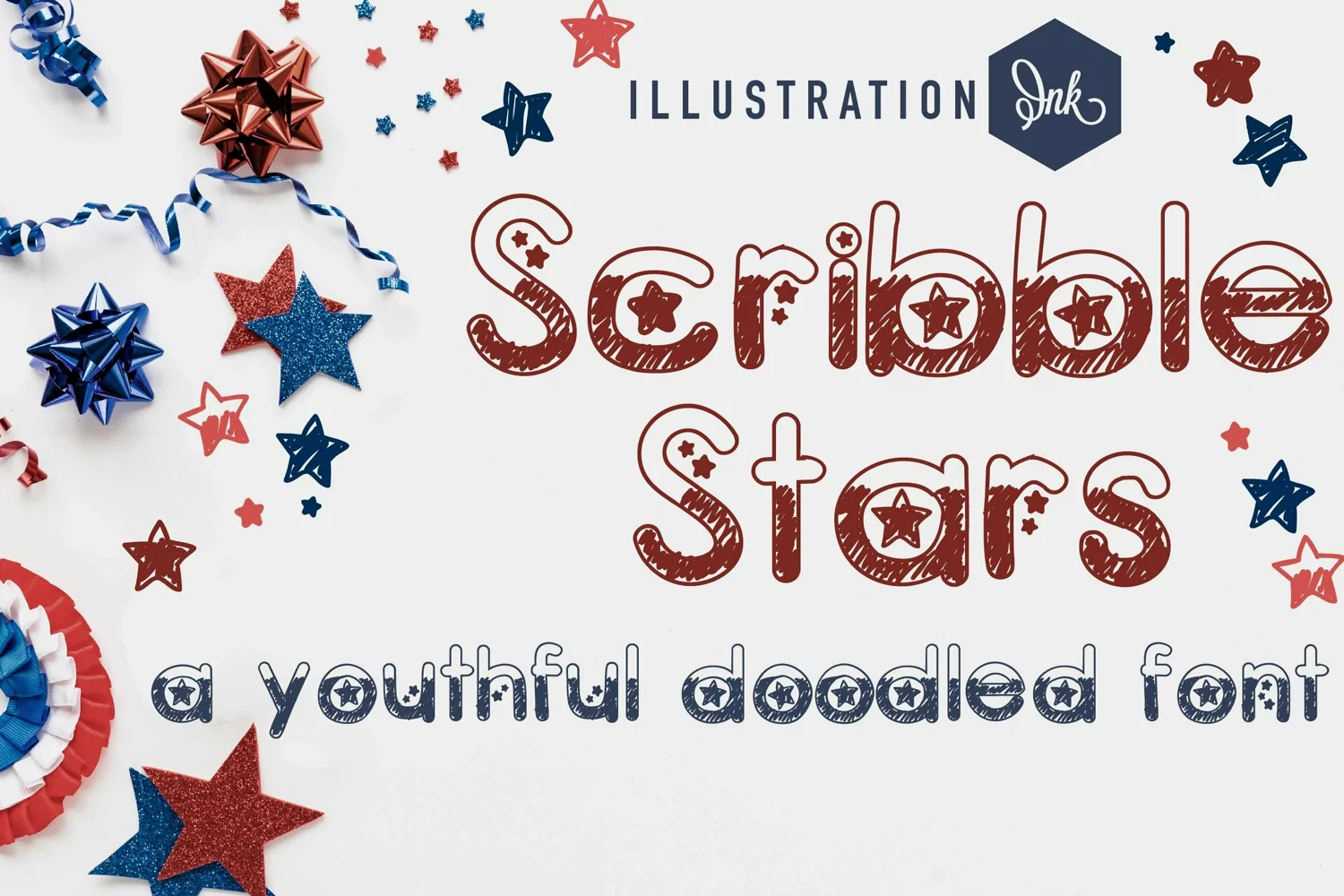
This hand-crafted, doodled, sans serif sports stars throughout.
A hand-crafted font is a font that is designed to feel unique and crafty. It is often used for invitations, greeting cards, and other items. Hand-crafted fonts are typically informal and they can be used for a variety of purposes.